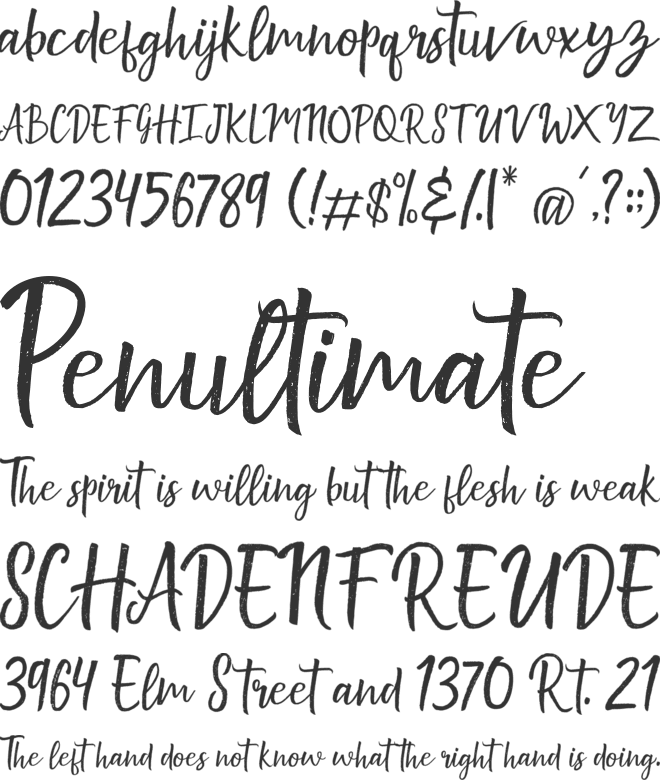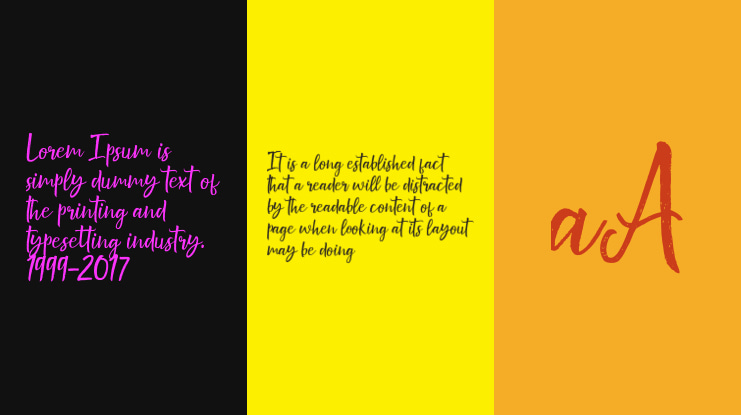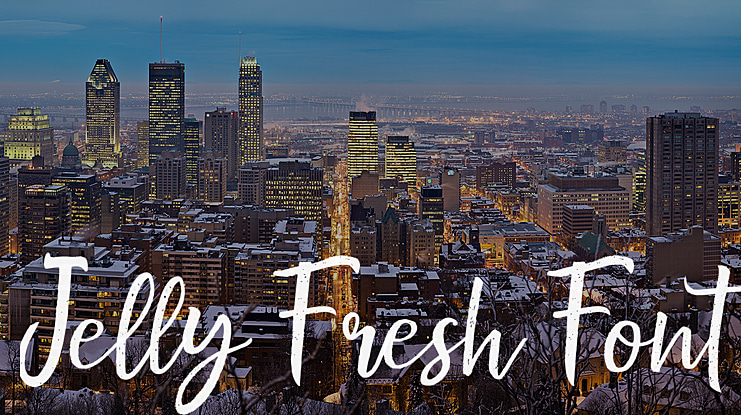
Jelly Fresh Font
Jelly Fresh is cool textured brush font, contemporary approach to design, natural handmade with an irregular baseline. Suitable for use in title design. Such as apparel, greeting cards, t-shirts, packaging designs, posters, invitations, books tittle, stationery design, quotes, branding, logos, and more. Jelly Fresh Font includes a complete set of uppercase and lowercase letters, as well as multi-language support, numbers, punctuation, ligatures and alternates.Thanks so much for looking and please let me know if you have any question.